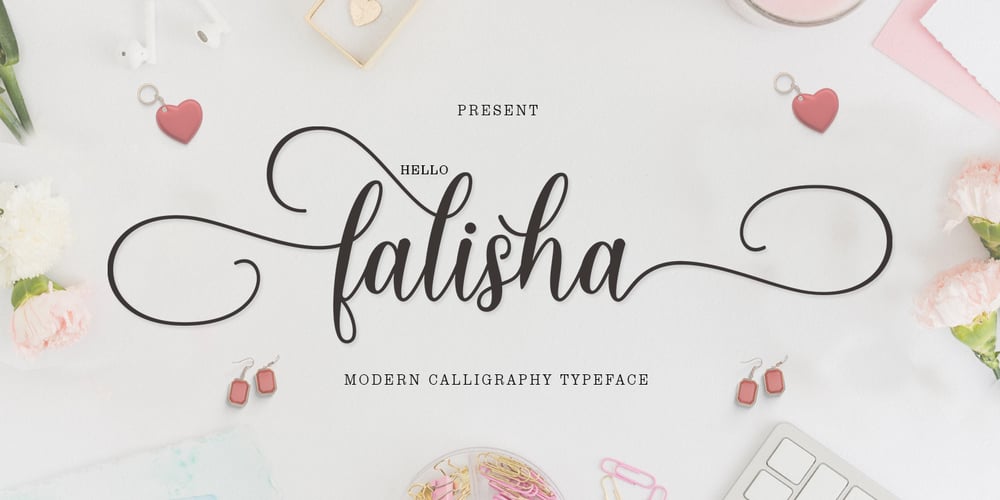
Hello Falisha Font Family was designed by Ikhsan Maulana and published by IM Studio. Hello Falisha contains 1 styles and family package options. Hello Falisha amazing script comes with 315+ glyphs. Alternative characters are divided into several Open Type features such as Swash, Stylistic Sets, Stylistic Alternates, Contextual Alternates. The Open Type feature can be accessed using programs that understand Open Type such as Adobe Illustrator, Adobe InDesign, Adobe Photoshop Corel Draw X version, and Microsoft Word. And this font has provided PUA unicode (custom coded font). so that all the stunt doubles are easily accessible to the craftsman or designer.